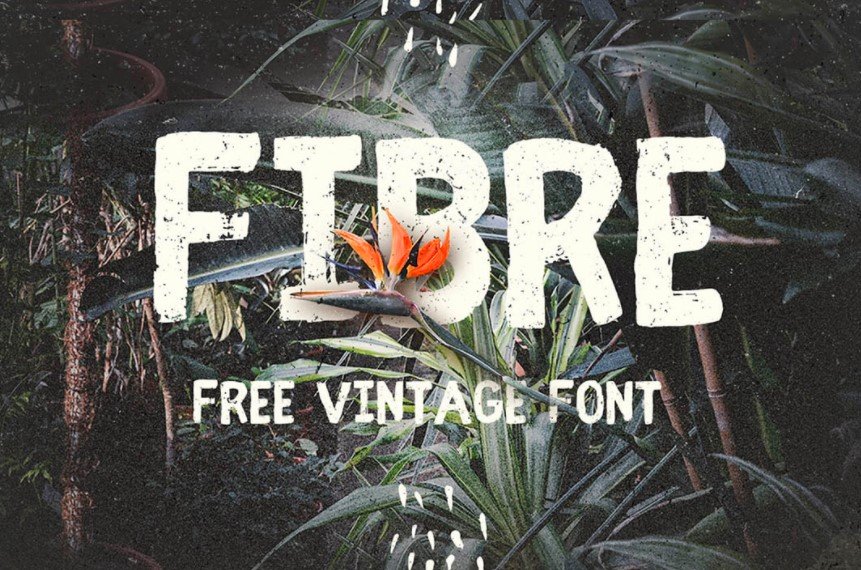
Hi designer, we’re excited to share with you a highly popular and sophisticated handwritten typeface favored by many professional graphic designers. The font is Fibre Vintage Font, featuring all the essential attributes required to create the ideal and stylish typeface.
The font contains all the characters including all the caps of lowercase and uppercase characters which gives you an awesome good looking texture.
You can see the characters set in the image above that is the great and awesome typeface which has rick styles sets and characters.
| Designer | Krisijanis mezulis |
What Type of Font Is Fibre Vintage?
The font is the famous and amazing typeface which was product of the efforts of Krisijanis mezulis.